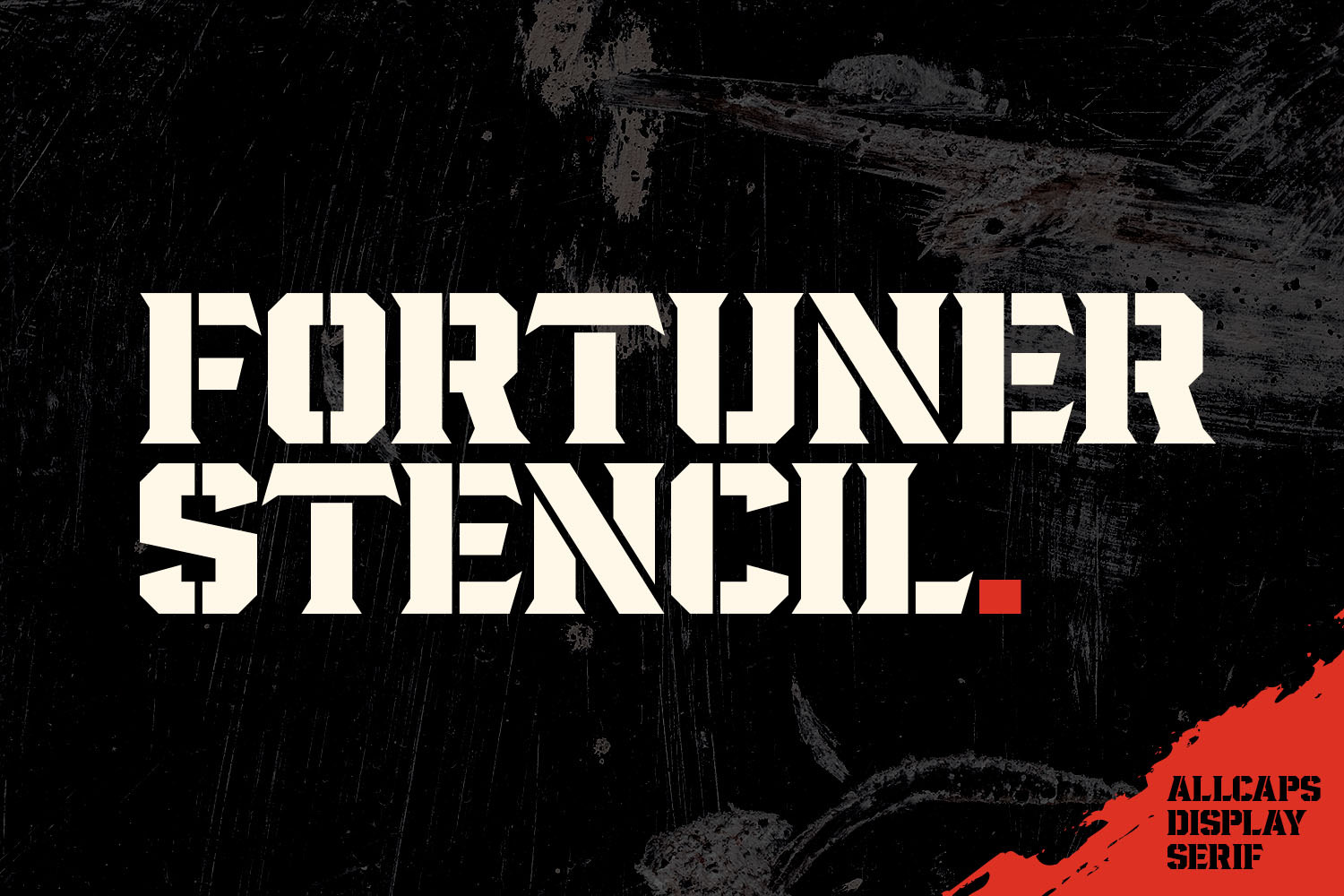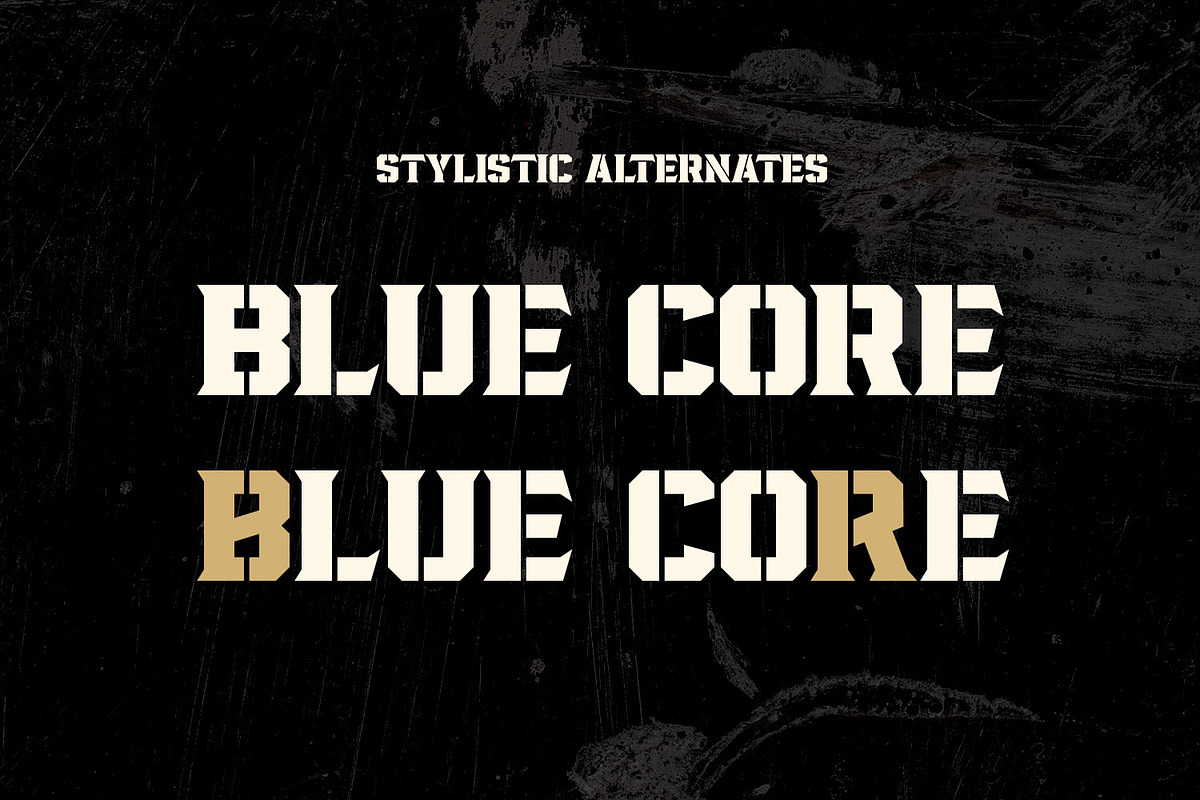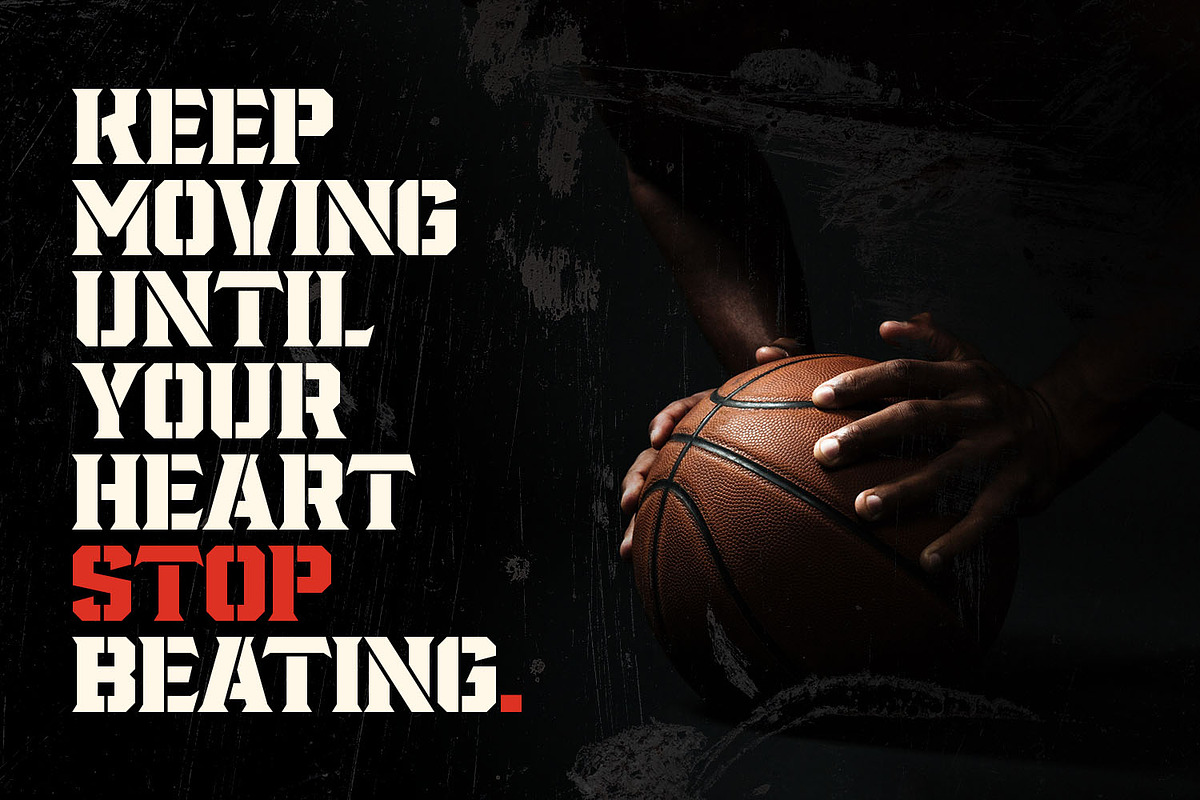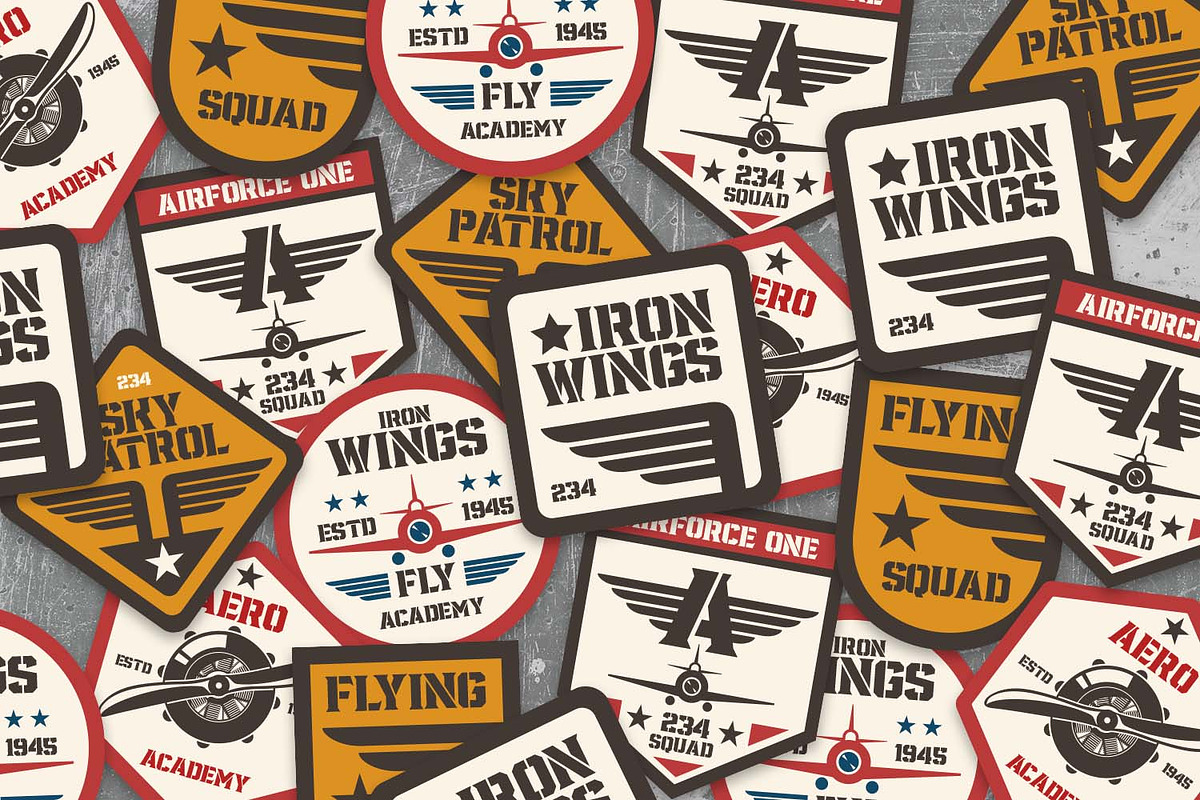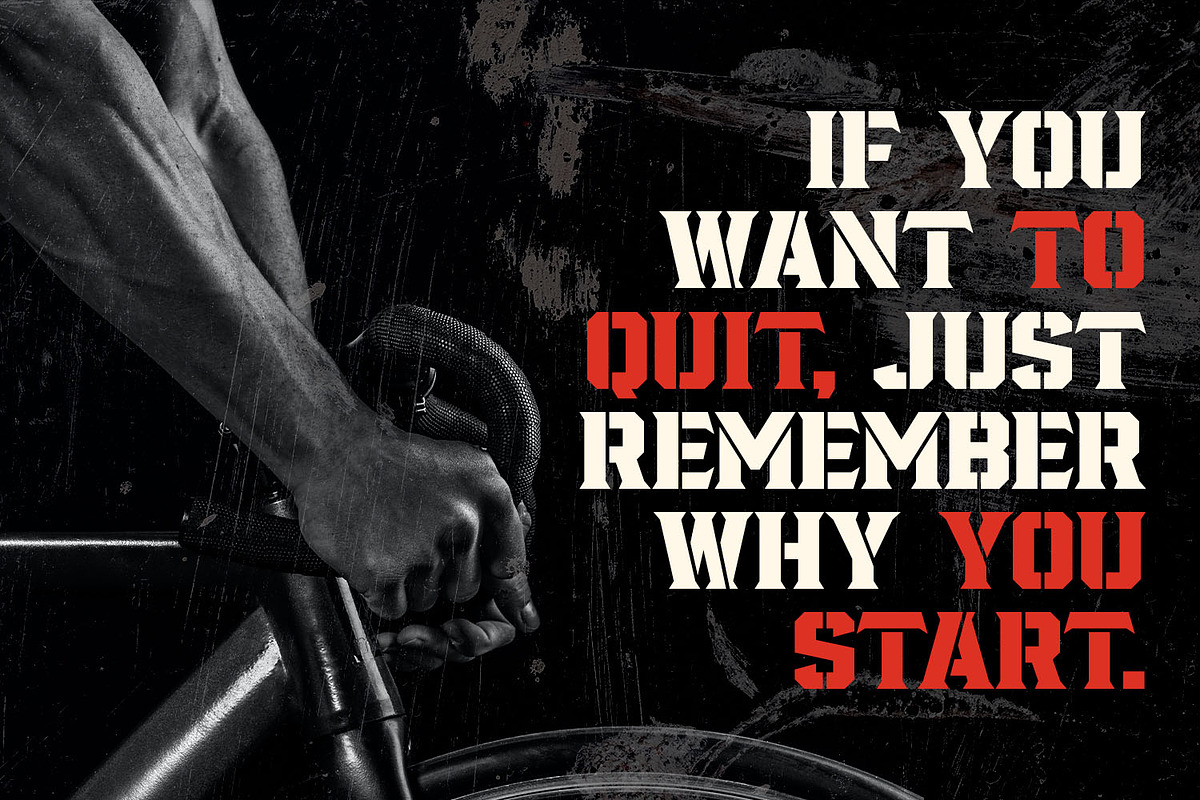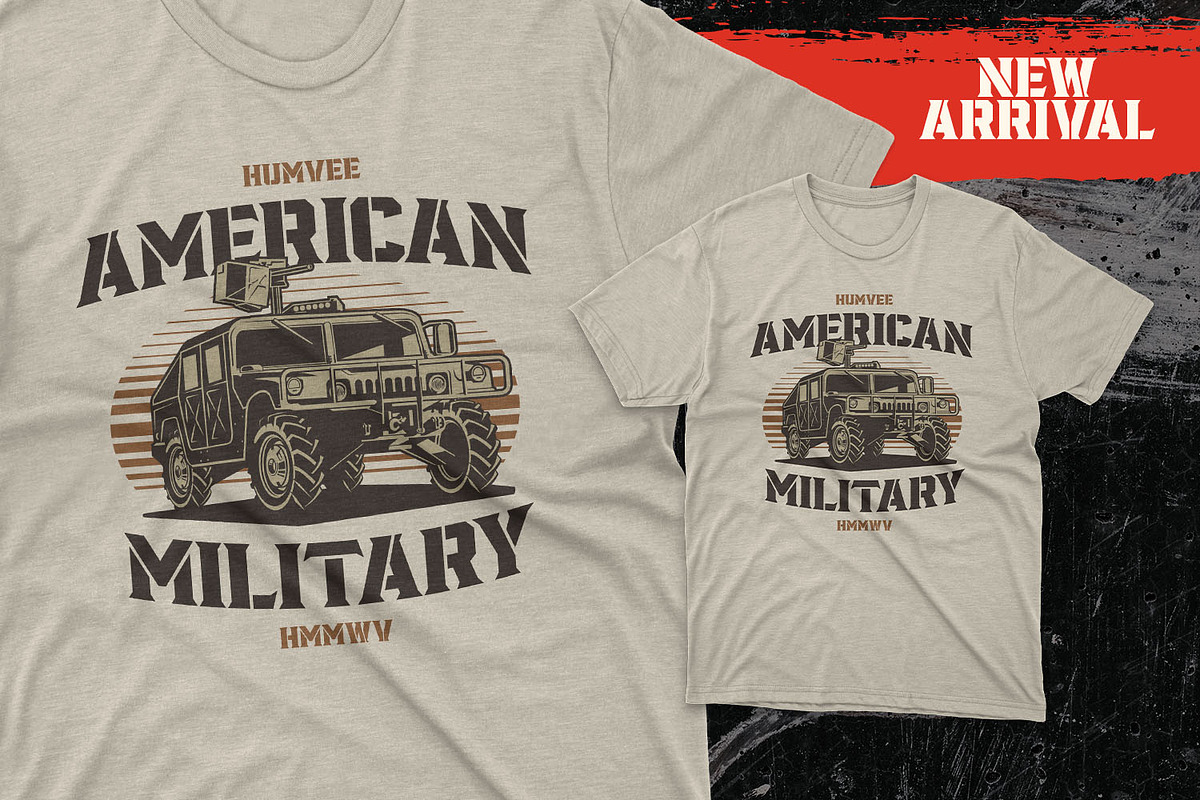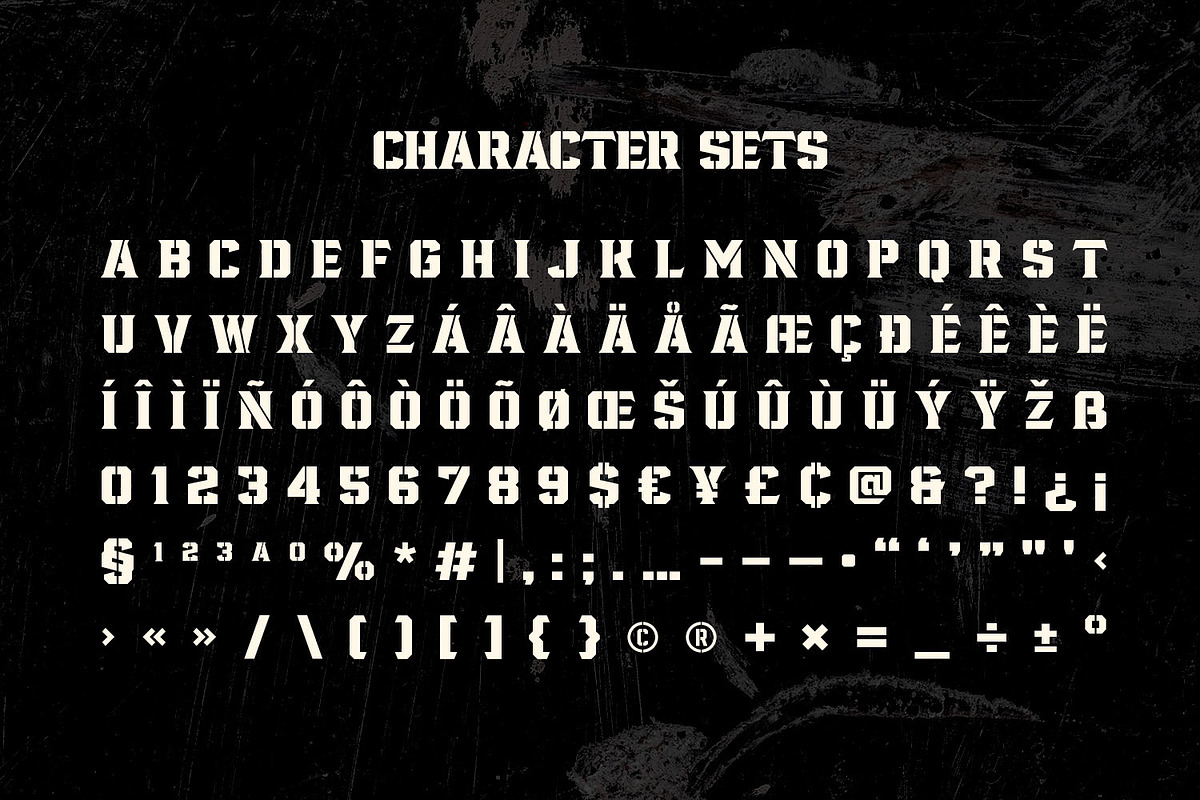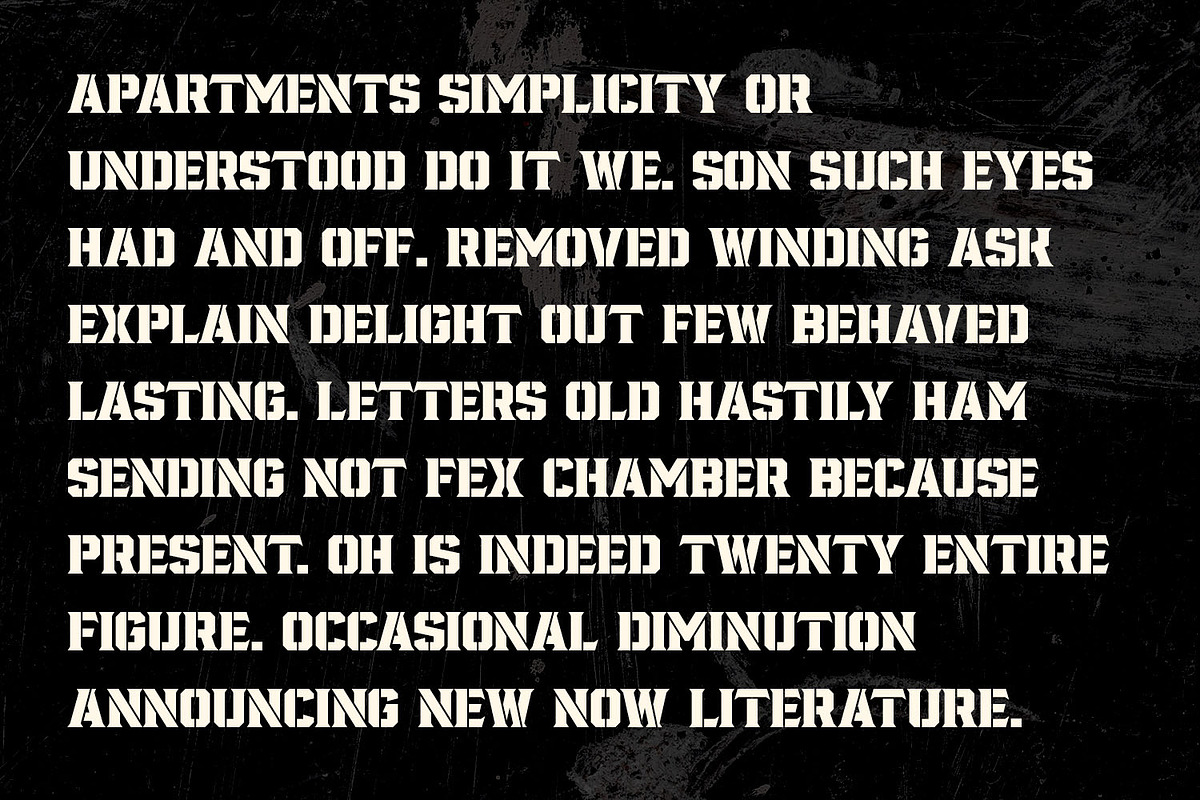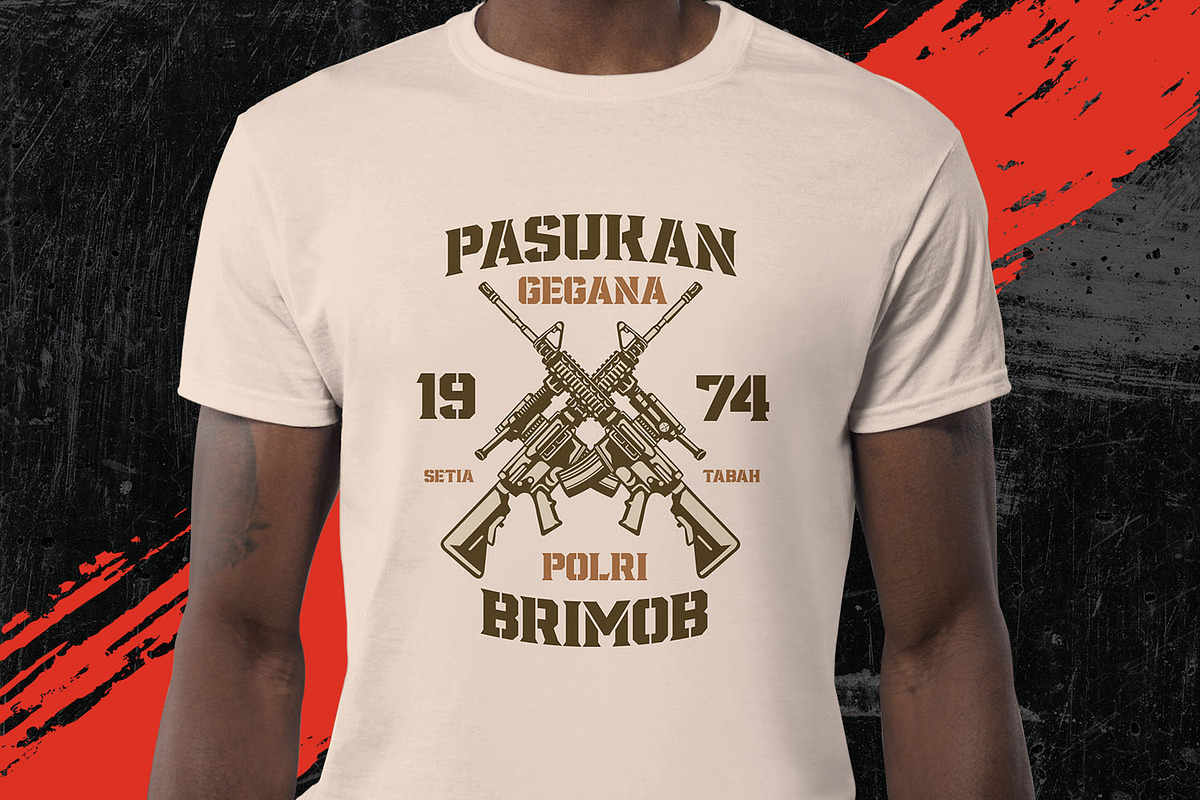
Fortuner - Stencil Font
Fortuner is a heavy all-caps display serif with a stencil-style typeface. It’s a perfect font for your design project with a military or sports theme.
FONT FEATURES
Additional Accents
66 Languages
Kerning